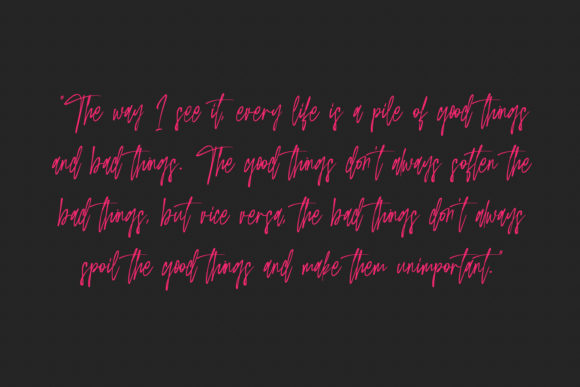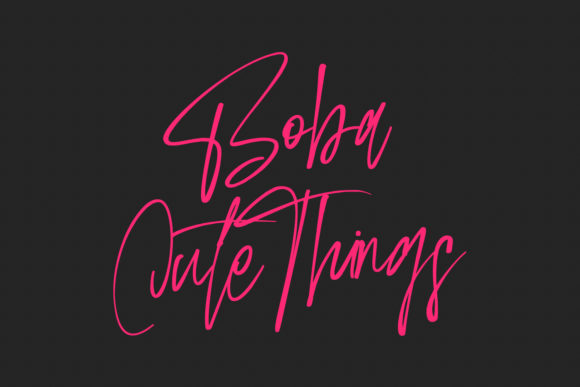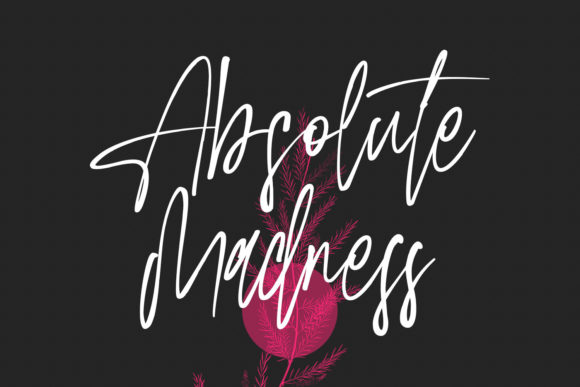
Introduction to Orbitens Font
Have you ever found yourself scrolling through a beautiful wedding invitation or a stunning social media post and wondering what makes it so captivating? For me, it’s often the elegant script font that catches my eye. And today, I’m excited to share with you a design resource that’s sure to elevate your creative projects: the Orbitens Font.
As a designer, having access to high-quality fonts can make all the difference in bringing your vision to life. And with the Orbitens Font, you’ll be able to add a touch of sophistication to your designs with ease. Whether you’re creating beautiful stationery art or eye-catching social media posts, this elegant script font is sure to impress. Plus, with its transparent background, you’ll have the flexibility to use it with any design element.
Key Features of Orbitens Font
- Unique, high-quality design perfect for creative projects requiring a modern touch.
- Orbitens Font is optimized for use in a variety of sizes, from small text to large headings, without compromising readability.
- Perfect for designers seeking a versatile and stylish font to elevate their designs and leave a lasting impression.
Honest Review: Orbitens Font
I recently came across the Orbitens Font and I must say, it’s been a great addition to my design resource collection. As a designer, I’m always on the lookout for high-quality fonts that can elevate my creative projects. The Orbitens Font delivers just that.
One of the standout features of this font is its versatility. It works well in a variety of settings, from modern digital designs to more traditional print materials. The font’s clean lines and minimalist aesthetic make it a great choice for designers who want to create a sleek, professional look.
Here are some of the things that I like about the Orbitens Font:
- ✨ High-quality design: The font is well-crafted and looks great in a variety of sizes and styles.
- ⚠️ Limited character set: The font only includes a limited number of characters, which may not be suitable for all design projects.
- ⚠️ Not suitable for all font sizes: While the font looks great in most sizes, it may not be ideal for very large or very small text.
Overall, I’m really impressed with the Orbitens Font. It’s a high-quality design resource that can add a lot of value to your creative projects. While it may have a few limitations, I think it’s well worth checking out.
Orbitens Font is a versatile and high-quality design resource ideal for any creative project. With its unique style and transparent background, it’s perfect for adding a touch of sophistication to your designs.
Tips for Getting the Most Out of Orbitens Font
To get the most out of Orbitens Font, experiment with different font sizes, colors, and combinations. You can also use it in conjunction with other design elements to create a unique and eye-catching design.
Common Use Cases for Orbitens Font
Orbitens Font is ideal for use in logos, branding materials, and marketing materials. It’s also great for creating invitations, menus, and other print materials that require a touch of elegance and sophistication.